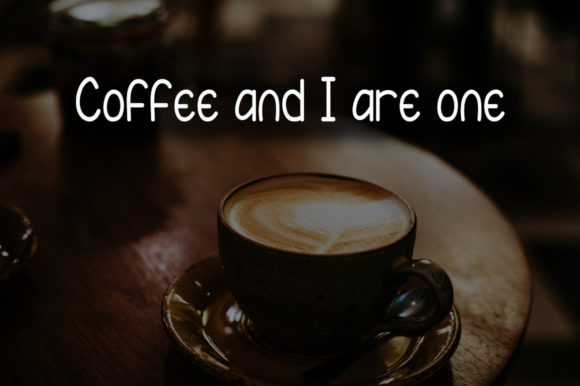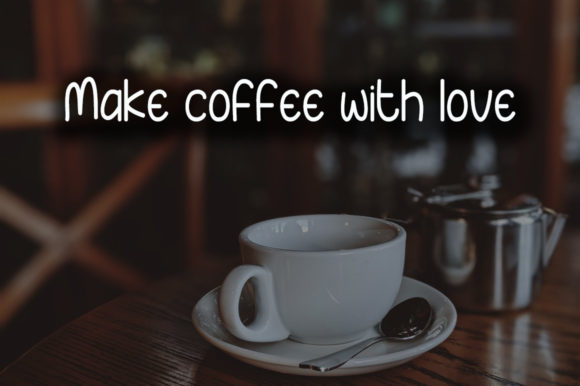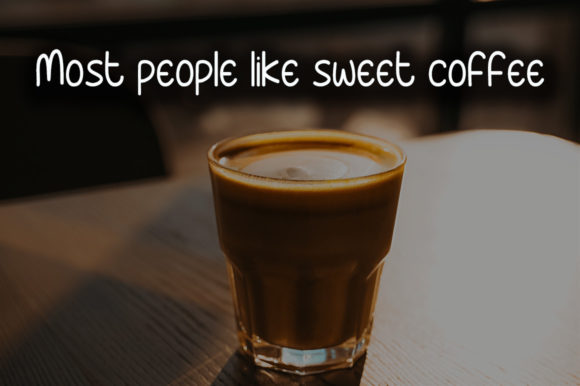
Coffee Mocha Font: The Perfect Addition to Your Design Toolbox
Are you a designer or crafter looking for a unique and authentic font to add a personal touch to your designs? Look no further than the Coffee Mocha Font! This beautiful handwritten font is perfect for creating chalkboard quotes, teaching materials, and other designs that require a personal and realistic feel.
What is Coffee Mocha Font?
Coffee Mocha Font is a carefully crafted handwritten font that mimics the look and feel of chalkboard writing. Its authentic and rustic design makes it perfect for creating designs that require a personal touch. Whether you’re a designer, teacher, or crafter, this font is sure to become a staple in your design toolbox.
Features of Coffee Mocha Font
- Handwritten Design: Coffee Mocha Font is a handwritten font that is designed to look like it was written on a chalkboard. Its unique and authentic design makes it perfect for creating designs that require a personal touch.
- Chalkboard Look and Feel: The font’s chalkboard-inspired design makes it perfect for creating chalkboard quotes, teaching materials, and other designs that require a rustic and authentic look.
- Versatile: Coffee Mocha Font is a versatile font that can be used for a wide range of designs, including chalkboard quotes, teaching materials, posters, and more.
Uses of Coffee Mocha Font
Coffee Mocha Font is a versatile font that can be used for a wide range of designs. Here are some of the most popular uses of this font:
- Chalkboard Quotes: Coffee Mocha Font is perfect for creating chalkboard quotes that are both inspirational and visually appealing.
- Teaching Materials: The font’s authentic look and feel make it perfect for creating teaching materials, such as worksheets, posters, and presentations.
- Posters and Flyers: Coffee Mocha Font can be used to create eye-catching posters and flyers that are perfect for advertising events, products, or services.
- Crafting and Scrapbooking: The font’s rustic and authentic design make it perfect for use in crafting and scrapbooking projects.
- Unique and Authentic Design: Coffee Mocha Font has a unique and authentic design that will set your designs apart from the competition.
- Easy to Read: The font is easy to read, even at small sizes, making it perfect for use in a wide range of designs.
Coffee Mocha Font is a beautiful handwritten font that is perfect for designers and crafters who want to add a personal touch to their designs. Its authentic look and feel make it perfect for creating chalkboard quotes, teaching materials, and other designs that require a rustic and authentic look. With its ease of use, versatility, and cost-effectiveness, Coffee Mocha Font is a must-have font for any designer or crafter.